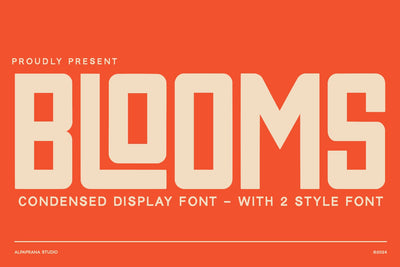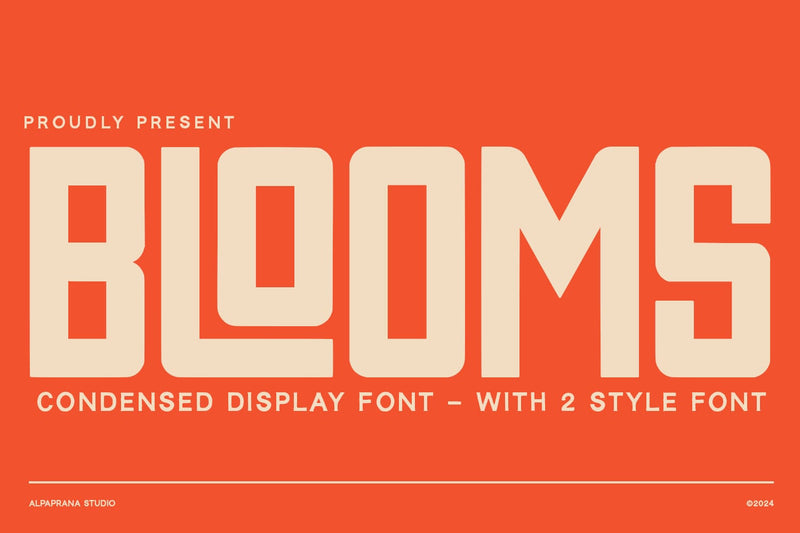
Blooms - Display Font
Blooms is a condensed display font with authentic and modern feels. It will be perfectly used for Branding, Logo Design, Lettering, Logotype, Clothing, Poster, magazine, packaging, posters, shopping bags, t-shirts, book covers, photography, special events and other design project.